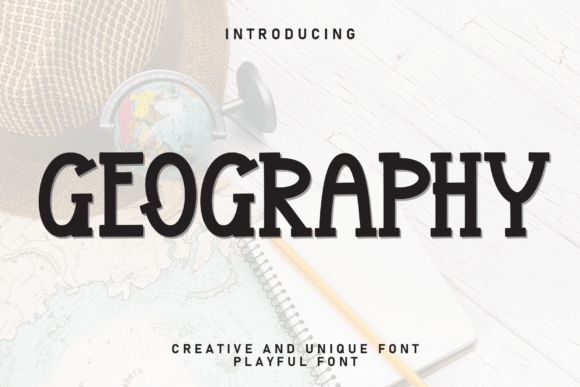
Discover the Delight of Geography Font
Have you ever found yourself pouring your heart and soul into a creative project, only to feel like something’s missing? The spark that sets your design ablaze and transports it from ordinary to extraordinary? For many designers, that elusive element is the perfect font – one that adds a dash of personality and whimsy to their work.
Enter Geography Font, a charming handwritten display font designed to bring a touch of elegance and playfulness to your designs. This enchanting font is perfect for wedding invitations, personalized cards, and any project that requires a dash of fun and charm. With its unique, handcrafted style, Geography Font is sure to breathe life into your artistic ideas and make them truly unforgettable.
Whether you’re a seasoned designer or just starting out, Geography Font is an invaluable addition to your toolkit. Its effortless charm and whimsical flair make it the perfect choice for adding that special something to your creations, and its versatility ensures it will adapt seamlessly to any design style or theme.
Key Features of Geography Font
- Font Family: Geography Font is a typeface designed to resemble hand-drawn maps, with a unique blend of serif and sans-serif elements.
- Unique Characteristics: The font features a distinctive, hand-drawn aesthetic, with intricate details and textures that evoke a sense of adventure and exploration.
- Language Support: Geography Font includes support for multiple languages, including Latin, Cyrillic, and Greek scripts, making it a versatile choice for global applications.
Geography Font Review
I recently had the chance to work with the Geography Font, and I must say it’s an interesting choice. ✨ One thing that stands out is its unique blend of modern and vintage elements, which can add a touch of sophistication to any design project. The font’s various styles and weights make it versatile and easy to use.
Another advantage of the Geography Font is its wide range of languages supported, making it a great option for global branding or international design projects. Additionally, the font is highly customizable, allowing designers to tweak its appearance to fit their specific needs.
- ⚠️ The font may not be suitable for small text sizes due to its complex design, which can make it difficult to read.
- ⚠️ Some users may find the font’s vintage elements too ornate or distracting, which can detract from the overall design.
Overall, I think the Geography Font is a solid choice for designers who want to add some personality to their projects. While it may have some limitations, its unique style and versatility make it a great option for the right project. Just be mindful of its potential drawbacks and use it judiciously to get the best results.
Use the “Geography Font” to create visually appealing maps and graphics.
Experiment with different font sizes and colors to create contrast and hierarchy.
Combine the “Geography Font” with other design elements, such as icons and images, to create engaging and informative designs.
The “Geography Font” is ideal for:
Creating maps and geographic visualizations.
Designing travel brochures and itineraries.
Developing educational materials and textbooks.
Q: Can I use Geography Font for print materials, such as brochures and business cards?
Yes, Geography Font is suitable for print materials, including brochures and business cards. The font is designed to be clear and legible at various print resolutions and sizes. However, please note that the font’s performance may vary depending on the print quality and paper type.